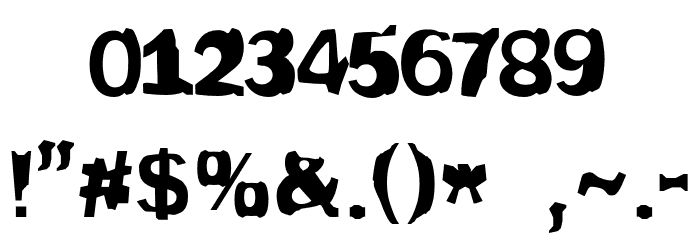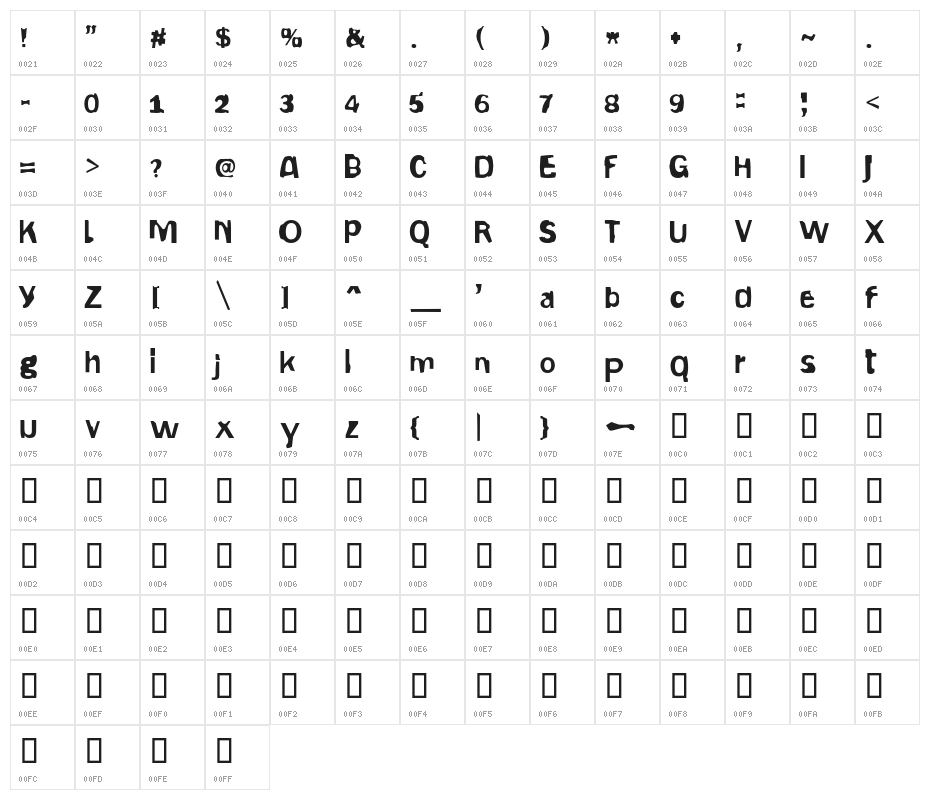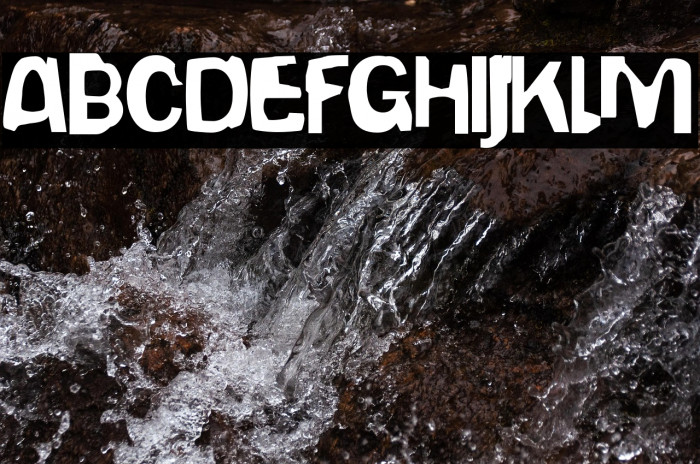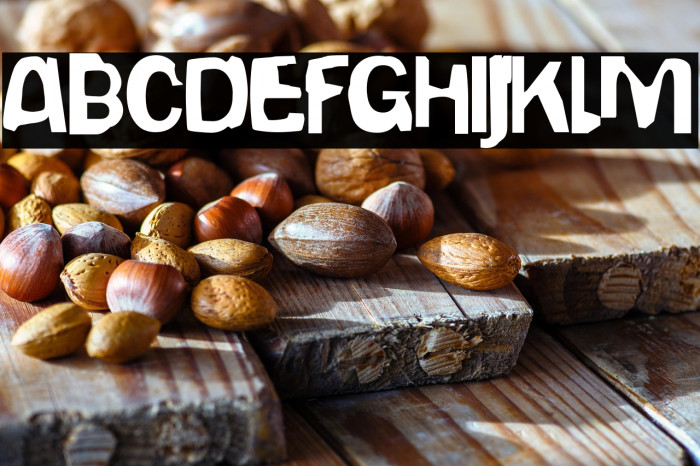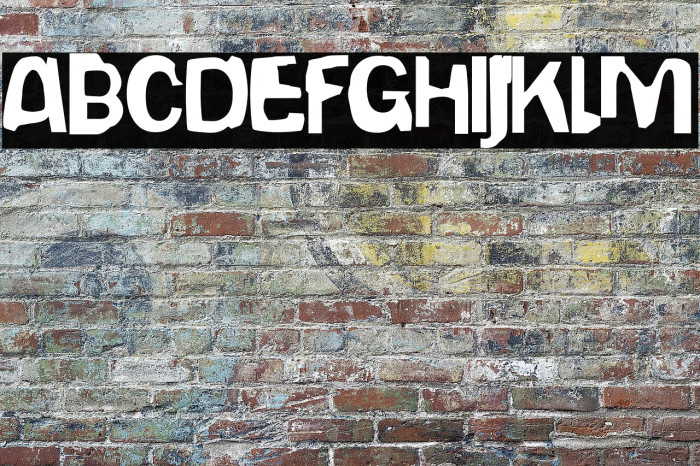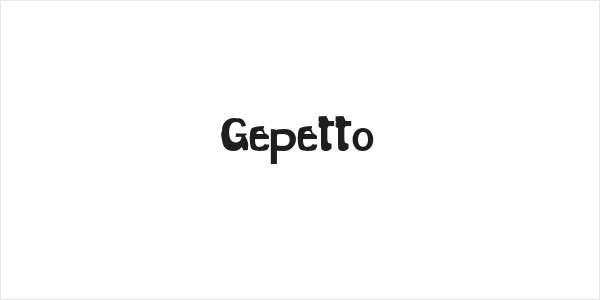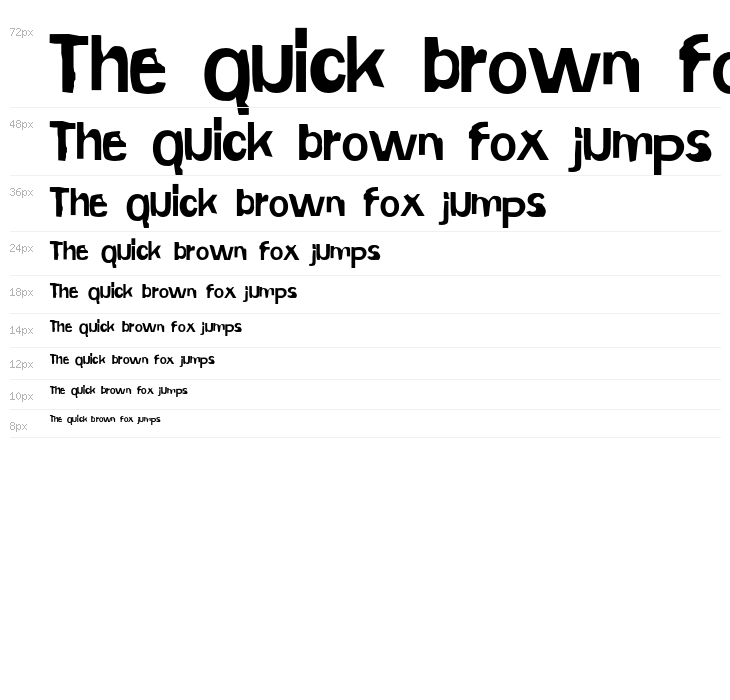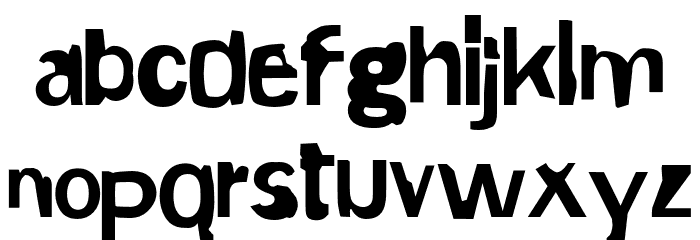
Gepetto Font
Gepetto Description
This font features a playful and whimsical design, characterized by its irregular and uneven letterforms. The strokes are bold and have a hand-drawn appearance, giving it a unique and artistic flair. The uppercase and lowercase letters maintain a consistent style, with quirky angles and curves that add to its charm. Numbers and special characters follow the same playful aesthetic, making it suitable for creative and informal projects. The overall look is dynamic and eye-catching, perfect for capturing attention in a fun and engaging way.
| Proposed Projects | Ideal for children's books, playful branding, creative posters, and artistic invitations. |